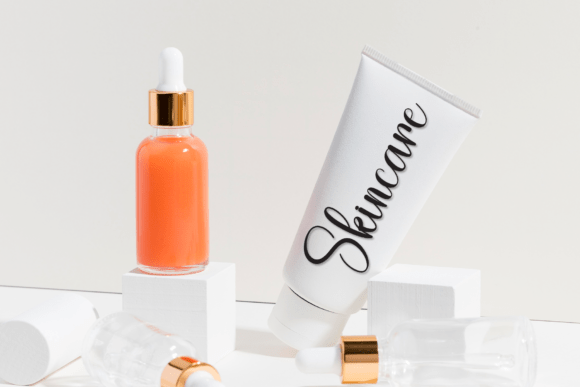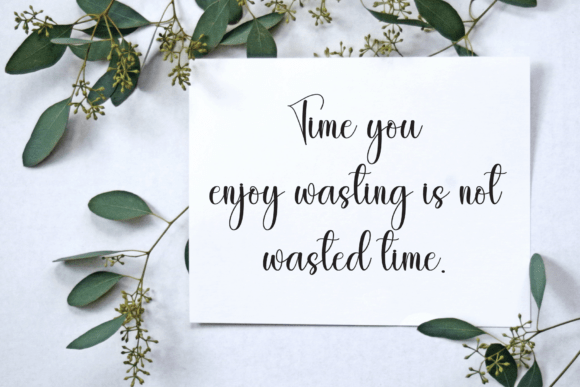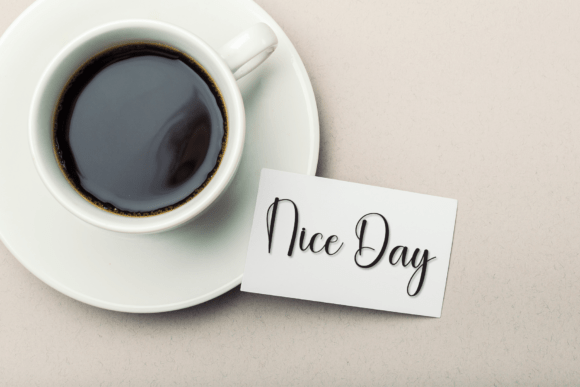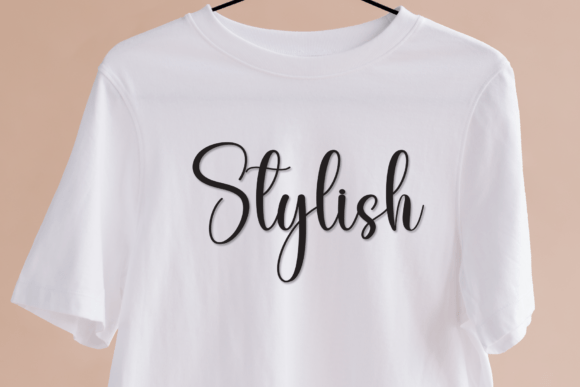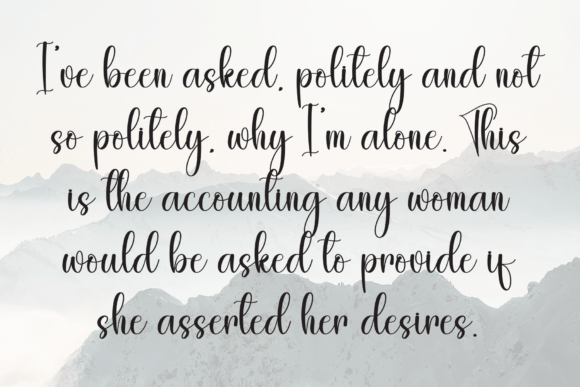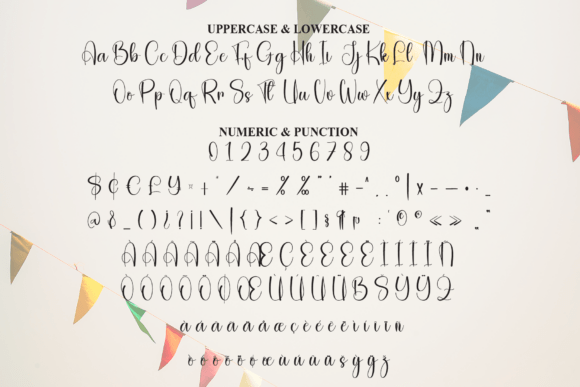
The Charming Bunting Font: Adding a Dash of Whimsy to Your Designs
I still remember the time I was working on a wedding invitation project, and my client asked me to create a design that was “whimsical” and “fun.” I scoured the internet for the perfect font, but nothing seemed quite right. That was until I stumbled upon the Bunting font. Its enchanting, handwritten charm instantly won me over, and I knew I had found the perfect fit for my project. In this article, I’ll share with you why I love the Bunting font, its features, and how to make the most of it in your designs.
An Honest Review of Bunting Font
What I Love About Bunting Font
• ✨ The playful, amiable nature of the font makes it perfect for adding a touch of whimsy to any design.
• ✅ The font is incredibly versatile and can be used for a wide range of projects, from wedding invitations to social media graphics.
• 💕 The handwritten charm of Bunting font makes it perfect for creating designs that feel personal and unique.
While the Bunting font is an excellent choice for many design projects, there are a few things to keep in mind:
• ⚠️ The font can be a bit overused, so be sure to balance it with other design elements to avoid overwhelming the viewer.
• 🤔 Some of the characters, such as the lowercase “g” and “y,” can be a bit tricky to read at smaller font sizes.
The Backstory of Bunting Font
The Bunting font was designed by a talented type designer who wanted to create a font that was both playful and elegant. Inspired by traditional handwritten fonts, the designer aimed to create a font that would add a touch of whimsy to any design. With its enchanting, handwritten charm, the Bunting font has become a popular choice among designers and crafters.
Q: What is the Bunting font best suited for?
A: The Bunting font is perfect for designing wedding invitations, crafting cards, and creating social media graphics that require a touch of whimsy.